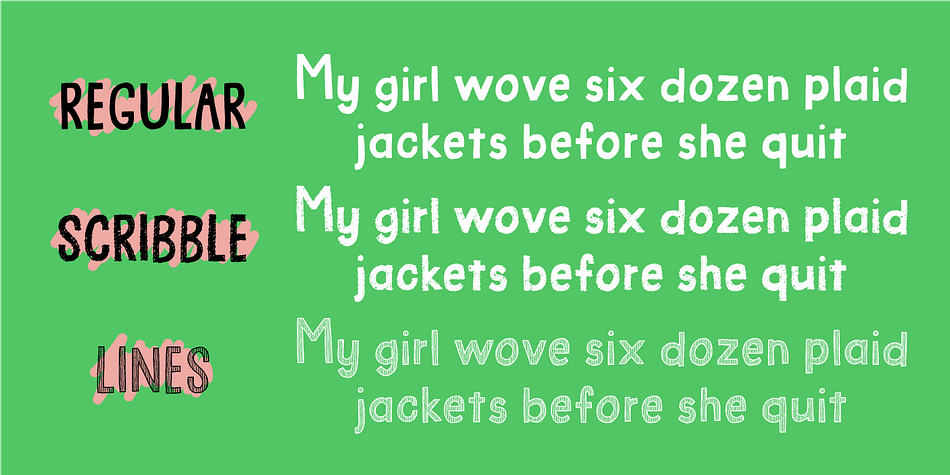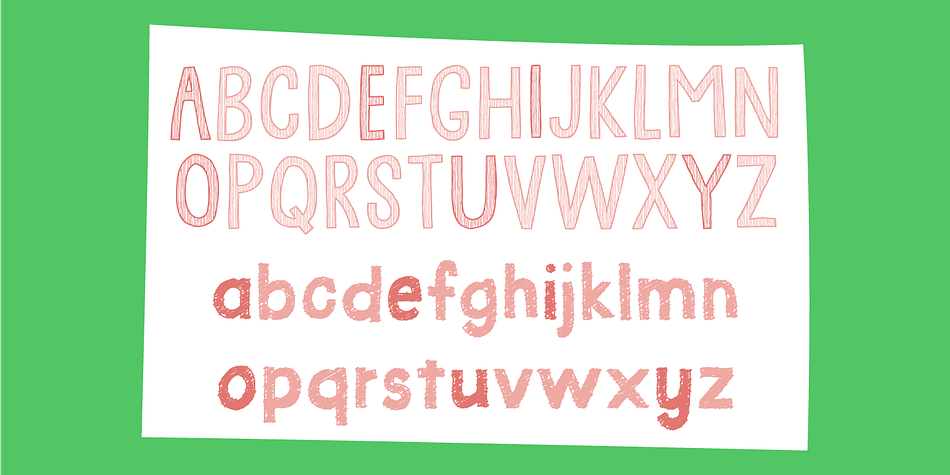
Snappy Pants
Designed by Jakob Fischer, Snappy Pants is a hand display font family. This typeface has three styles and was published by Bogstav.
Yes, this is a snappy font. Playful and charming in a simple way!